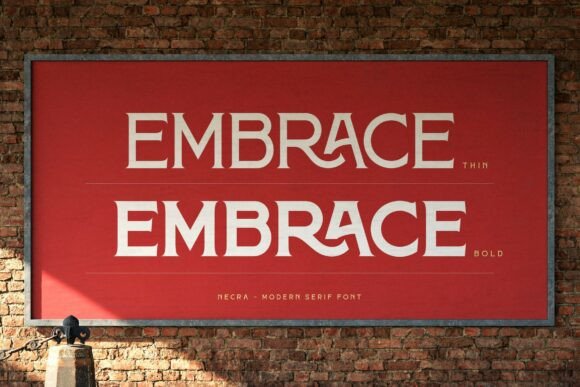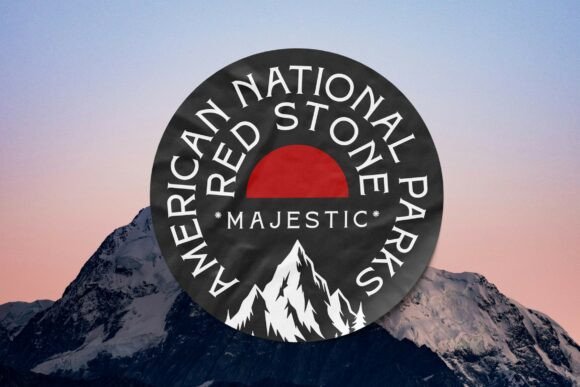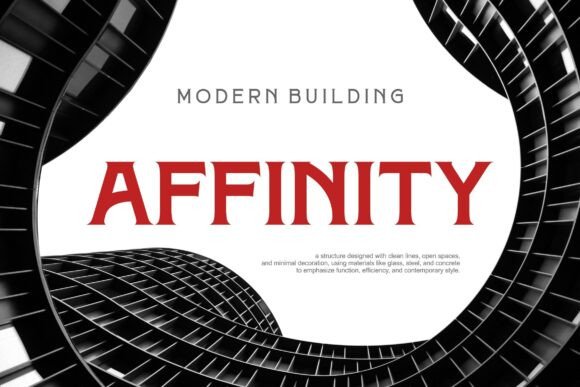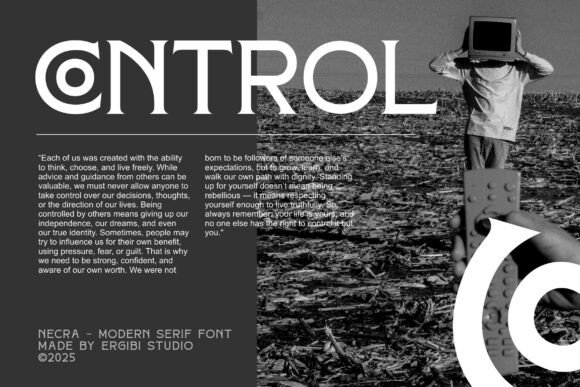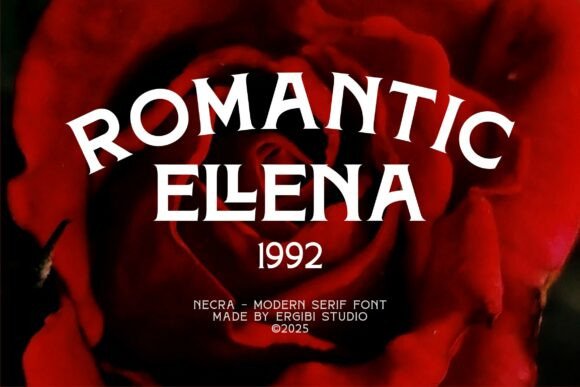
Introduction to Necra Font
NECRA is a modern serif typeface that blends timeless elegance with sharp, contemporary details.
Crafted for high-impact designs, NECRA features clean lines, strong contrast, and stylish letterforms that make it perfect for headlines, logos, editorial layouts, branding, and packaging Whether youโre aiming for luxury, bold authority, or artistic minimalism, NECRA comes in two distinct weights, Thin and Bold, giving you the flexibility to create contrast and hierarchy within your designs.